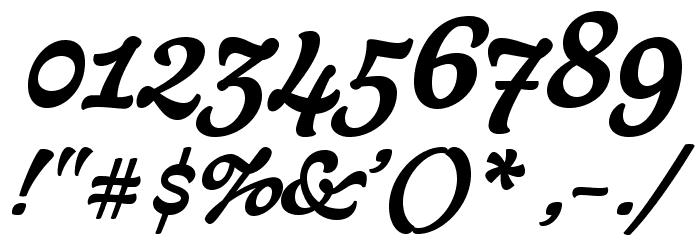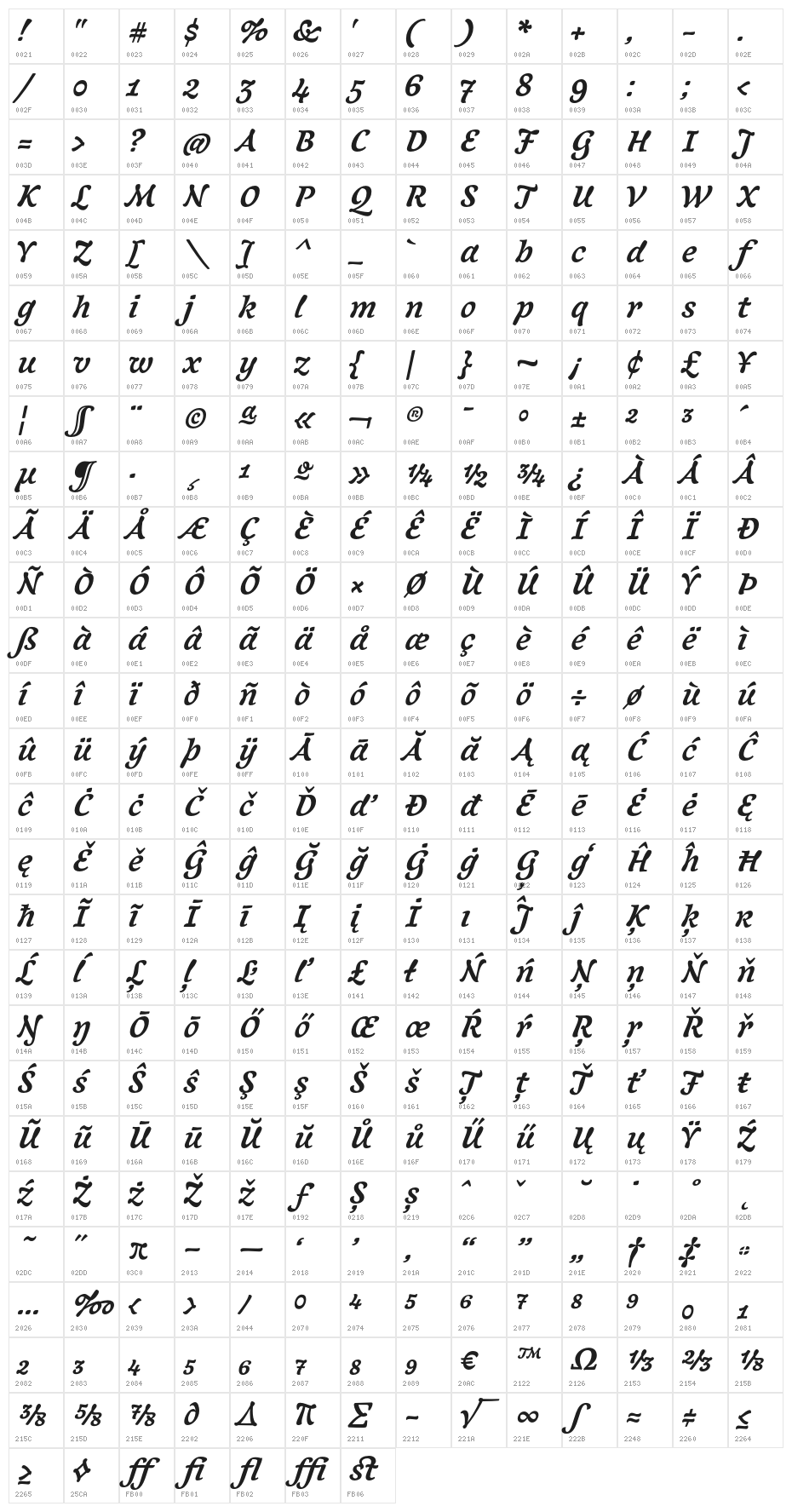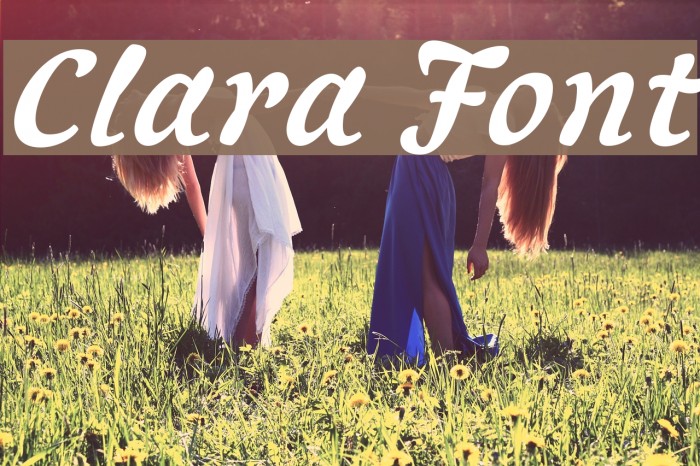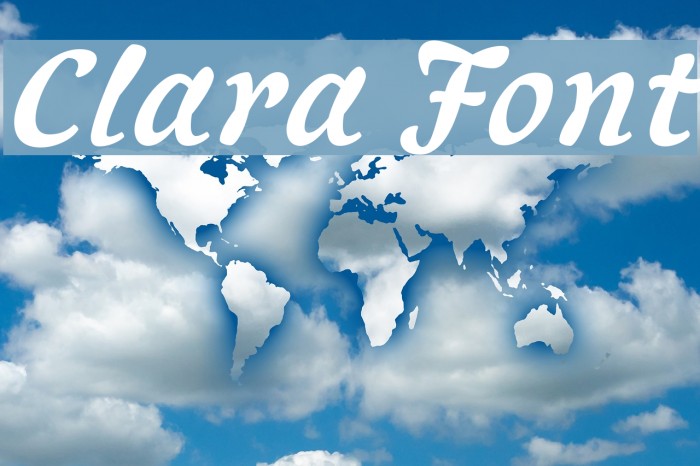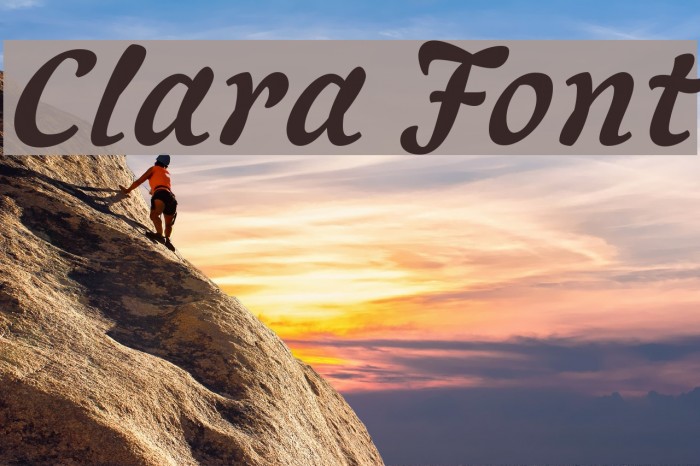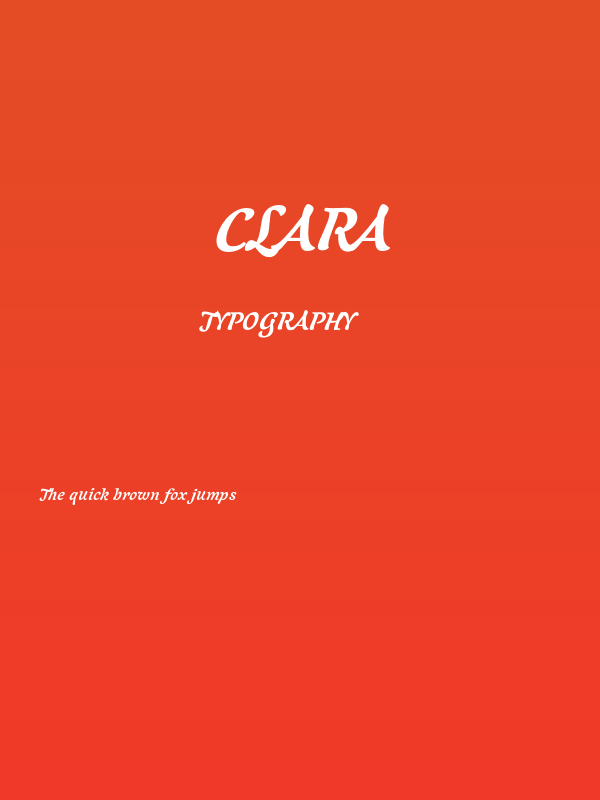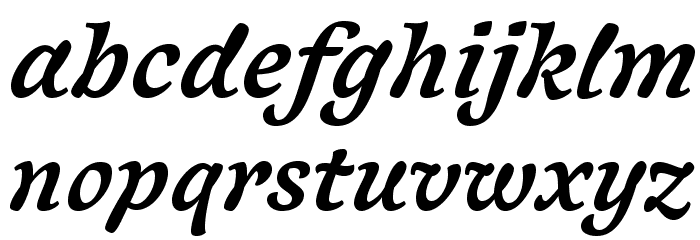
Clara Font
Clara Description
This font features a flowing, cursive style that exudes elegance and sophistication. The characters are interconnected with smooth, sweeping strokes, creating a sense of fluidity and movement. The uppercase letters are bold and prominent, while the lowercase letters maintain a consistent rhythm and balance. The numerals are equally stylized, matching the overall aesthetic of the alphabet. Special characters are designed with the same attention to detail, ensuring a cohesive look across all glyphs. This font is perfect for projects that require a touch of class and refinement.